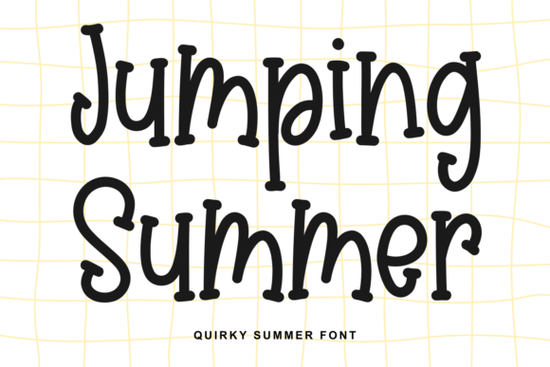
If you're looking for a font that captures the carefree spirit of summer think sunshine, laughter, and barefoot days Jumping Summer Font might be exactly what your next project needs. It’s a playful handwritten typeface with tall, bouncy letterforms and soft rounded edges that feel both cheerful and approachable. Whether you’re designing party invites, kids’ apparel, or social media posts for a seasonal sale, this font adds warmth without sacrificing readability.
What kinds of projects work best with Jumping Summer?
This font shines in designs that aim to feel light-hearted and friendly. Because of its whimsical but clear structure, it’s especially well-suited for:
- Summer-themed greeting cards or invitations
- Children’s book illustrations or educational printables
- Branding for ice cream shops, beachwear lines, or lemonade stands
- Social media graphics promoting seasonal events
- Print-on-demand products like tote bags, mugs, or T-shirts with uplifting messages
It’s not just about aesthetics the font remains legible even at smaller sizes, which matters when you’re working on product packaging or digital ads where clarity is key.
How does it compare to other playful script fonts?
Handwritten fonts can sometimes tip into being too messy or hard to read, but Jumping Summer strikes a balance. If you’ve used fonts like Swag Teacher or Evelina Hand, you’ll notice Jumping Summer has more vertical energy it “jumps” visually, giving words a sense of motion. Meanwhile, fonts like Bigboy lean into boldness, and Sweet Muse offers delicate elegance. Jumping Summer sits comfortably in the middle: energetic but not overwhelming, fun but still functional.
Can small businesses and crafters really use this effectively?
Absolutely. One of the biggest advantages of a font like this is its versatility across mediums. A small bakery could use it for summer menu specials; a teacher might create cheerful classroom labels; a POD seller could design quote-based tank tops that feel fresh and seasonal. Because it conveys personality without looking overly stylized, it works well even in commercial contexts where professionalism still matters.
Just remember: while it’s great for headlines, subheadings, or short phrases, avoid using it for long paragraphs. Like most display fonts, its charm works best in moderation.
Tips for pairing Jumping Summer with other typefaces
To keep your design balanced, pair Jumping Summer with a clean, neutral sans-serif font. Think options like Montserrat, Lato, or even a simple Helvetica. This contrast helps the playful script stand out while grounding the overall layout. For example:
- Use Jumping Summer for the main headline (“Summer Splash Party!”)
- Use a minimalist sans-serif for details (“Saturday, July 13 • 2–5 PM • Riverside Park”)
This combo ensures your message feels inviting but still organized ideal for flyers, posters, or online event banners.
Is it beginner-friendly?
One practical note: because it’s a single-style font (not part of a larger family with multiple weights), plan your hierarchy using size, color, or spacing rather than bold or italic variants.
- Context: Use it for short text only logos, titles, quotes, or labels not body copy.
- Contrast: Pair it with a simple, readable companion font to maintain clarity.
- Seasonality: While perfect for summer, its joyful vibe also works for spring festivals, birthday themes, or any project needing a lift.
If you’re ready to add some lighthearted charm to your designs, Jumping Summer Font offers an easy, effective way to do it without overcomplicating your workflow.